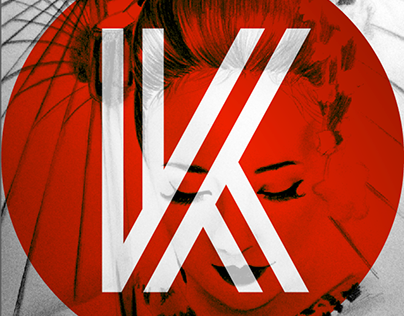
Kanji Font
Introducing to a Kanji Font, Kanji designed and shared by Pedro Azedo. “Kanji are the adopted logographic Chinese haracters that are used in the modern Japanese writing system. I’m fascinated how these charac- ters look almost like logos. They feel vibrant andalive, and were the inspiration for this font.”
Kanji only include capital letters, is designed in geometric inspiration, with bold lines and aligns very scientific, it is designed by hands, and neatly edited. You can use it for work purposes.